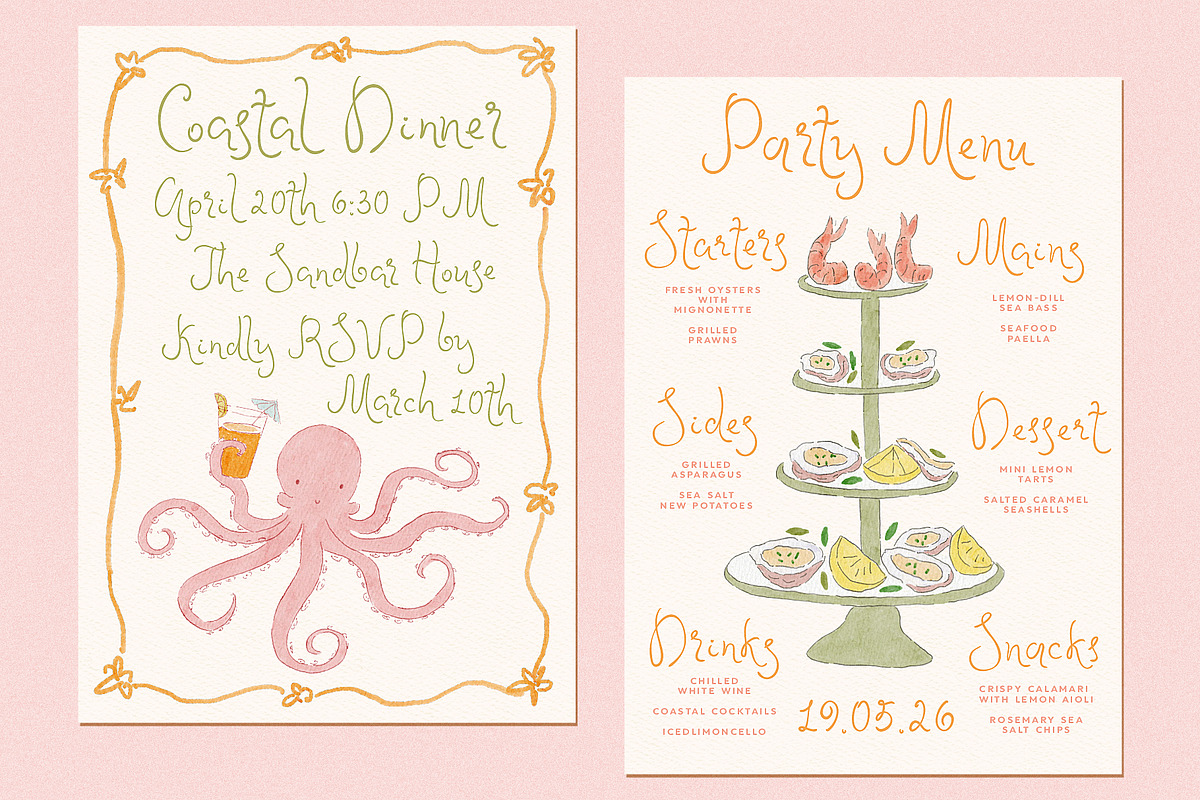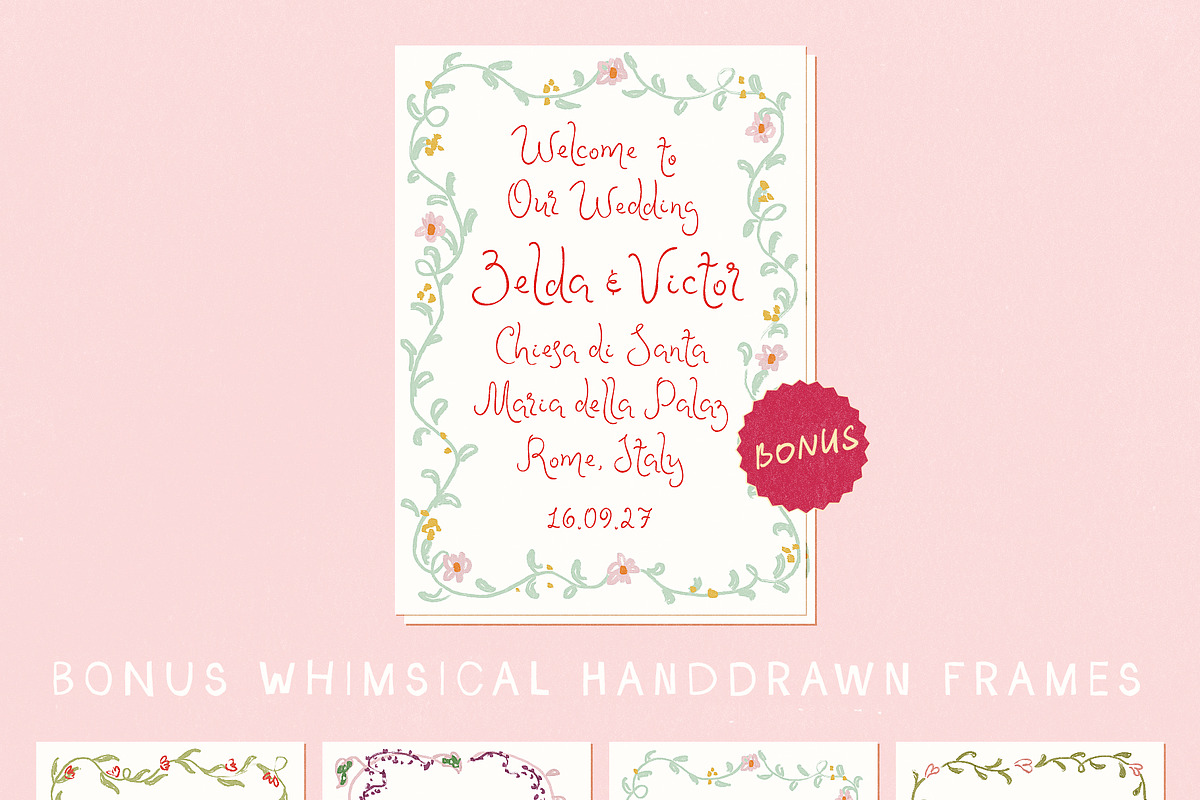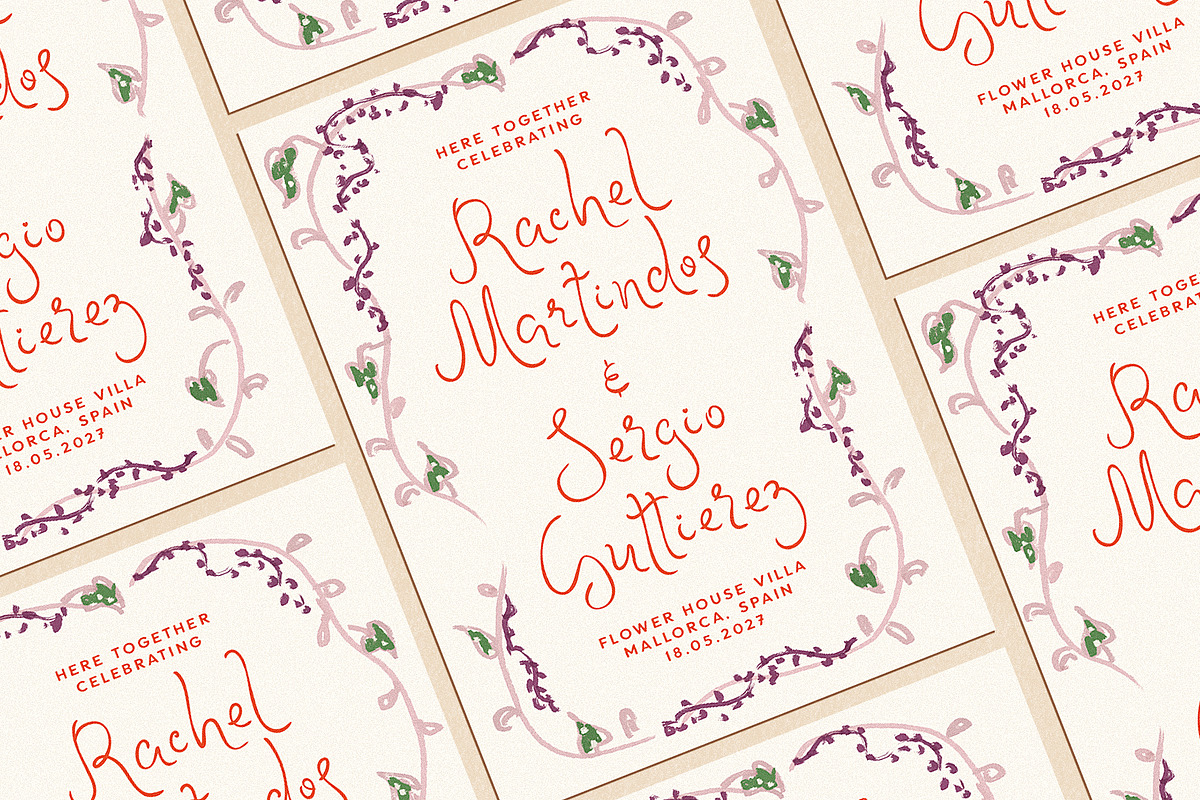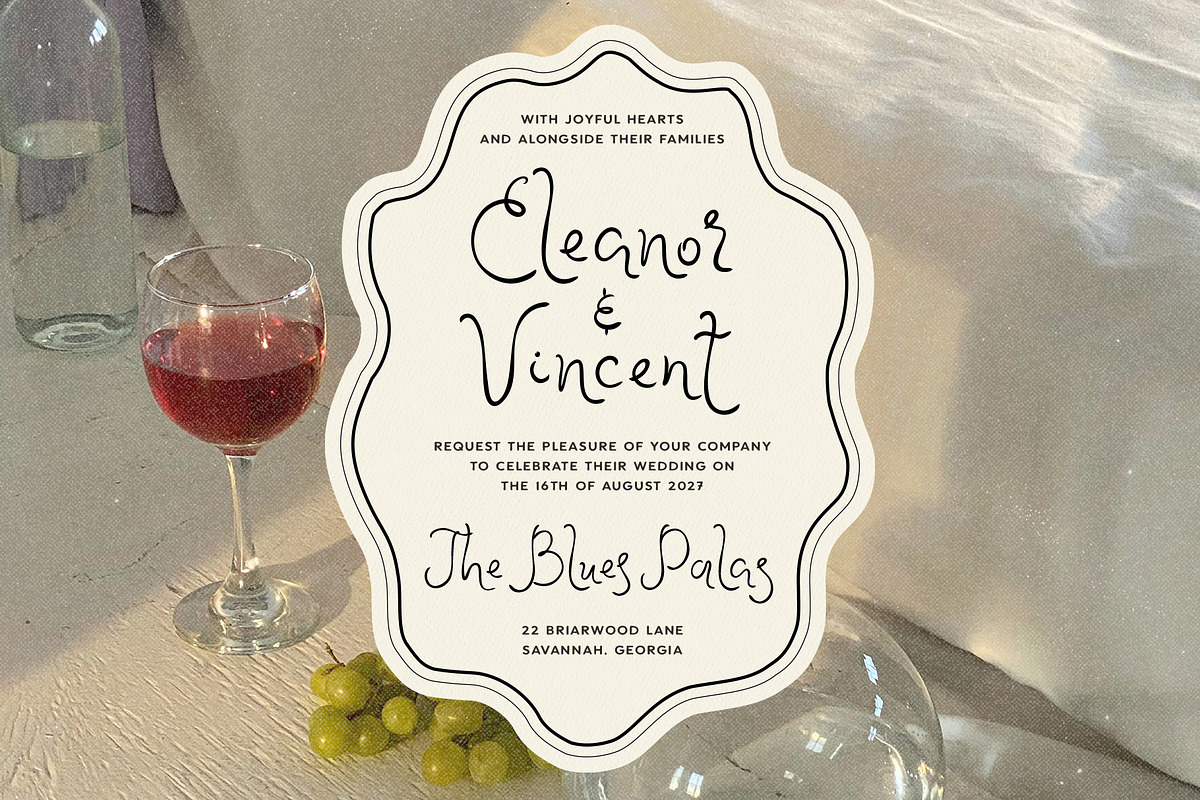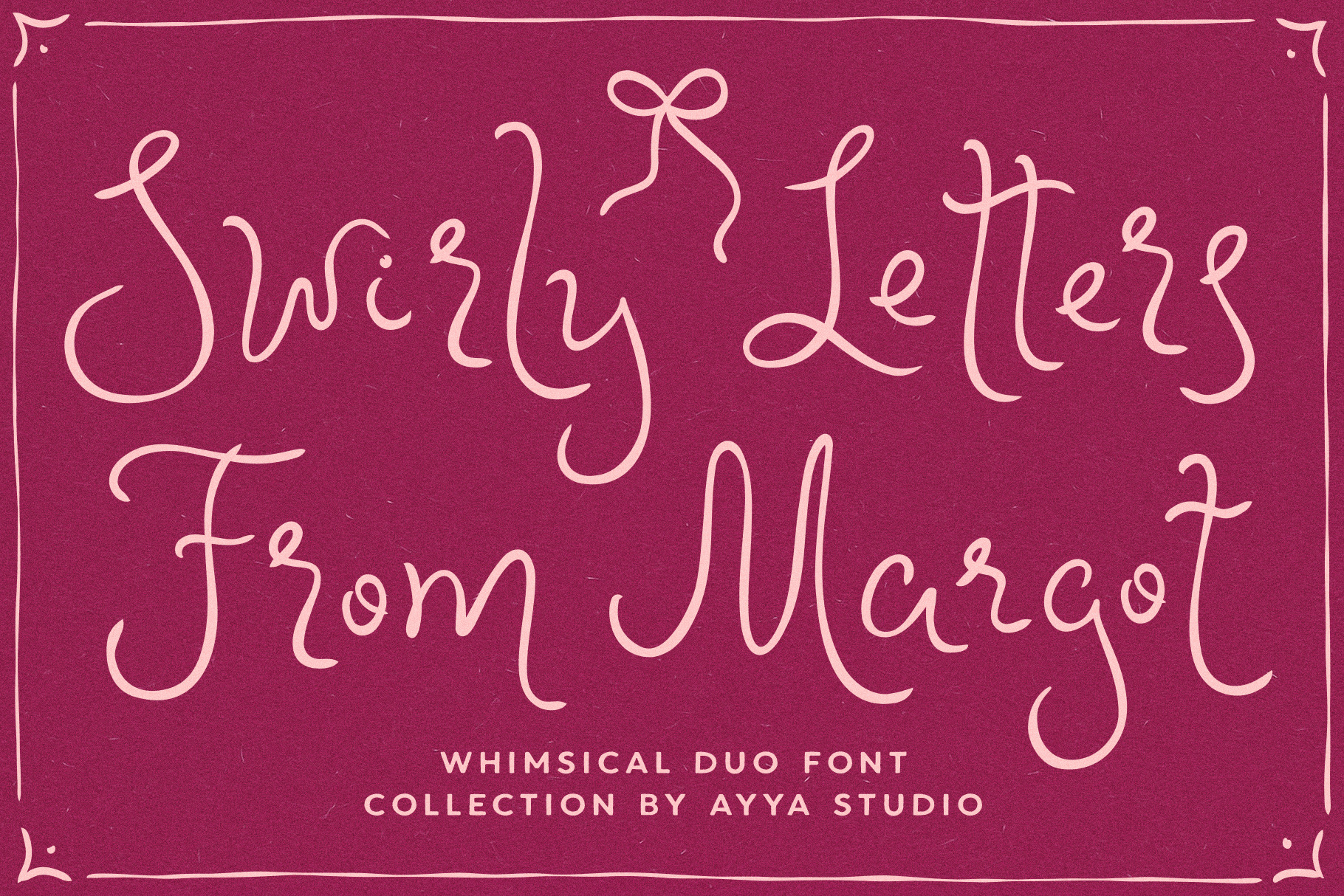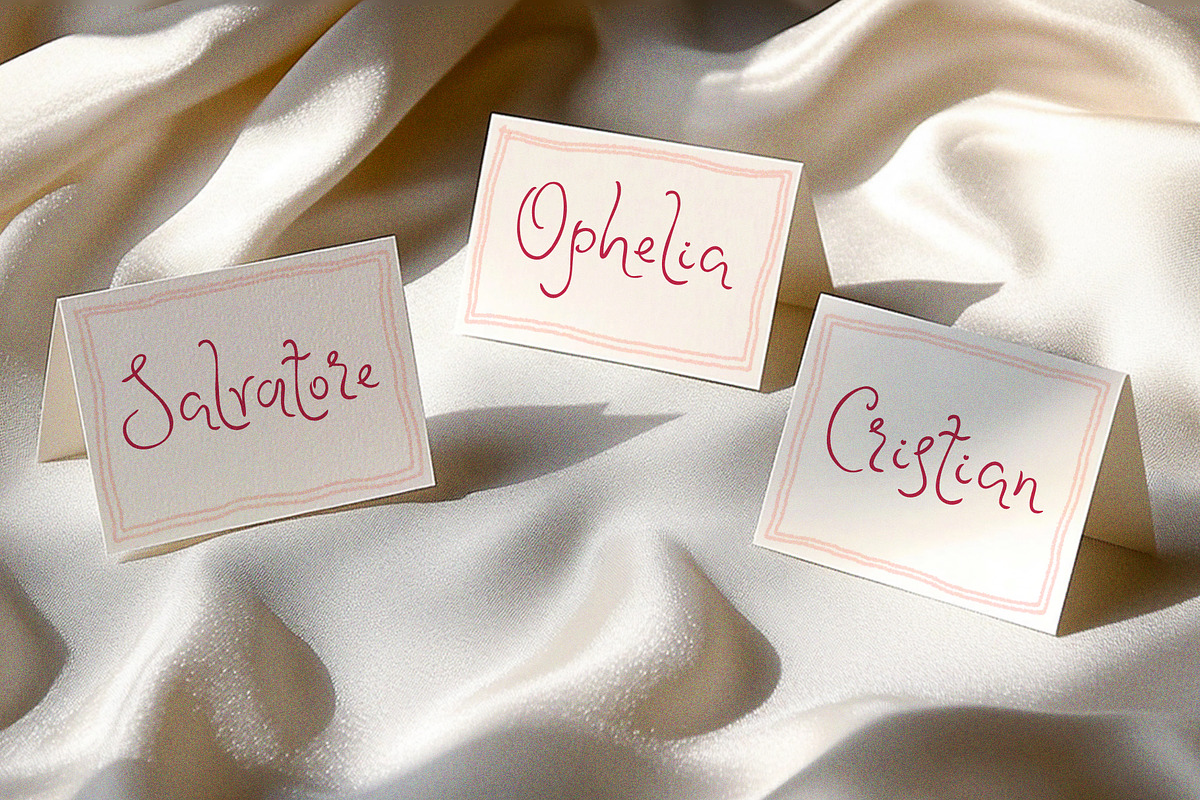
Swirly Letters Whimsical Font Duo
Say hello to Swirly Letters From Margot – a font made for love, laughter, and all things beautifully whimsical.
It’s elegant and charming with just the right amount of modern playfulness, making it a perfect match for the 2026–2027 wedding season. Maybe you're working on your wedding invites, sketching out a menu, or just making something special for someone you love. From everyday prints to personal projects, if you're after that magical, hand-drawn touch…this one's for you.
And as a little gift, you’ll also get a set of free floral frames to help you start designing your stationery with ease and joy.